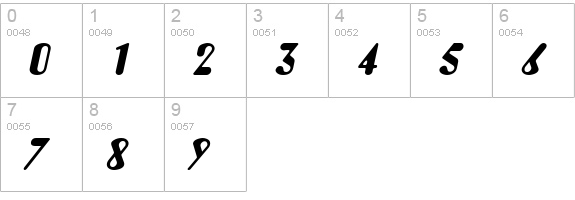
Amos BoldItalic font is a striking and modern typeface that exudes confidence and style. Its bold and italic design adds a touch of sophistication to any project, making it perfect for headlines, titles, and branding materials. With its sleek lines and sharp edges, Amos BoldItalic commands attention and leaves a lasting impression. This versatile font is ideal for a wide range of design projects, from posters and invitations to websites and social media graphics. Whether you're looking to make a bold statement or add a touch of flair to your designs, Amos BoldItalic is sure to deliver. Best of all, this font is available for free download at FontsMarket.com. So why wait? Elevate your designs today with the sleek and stylish Amos BoldItalic font.